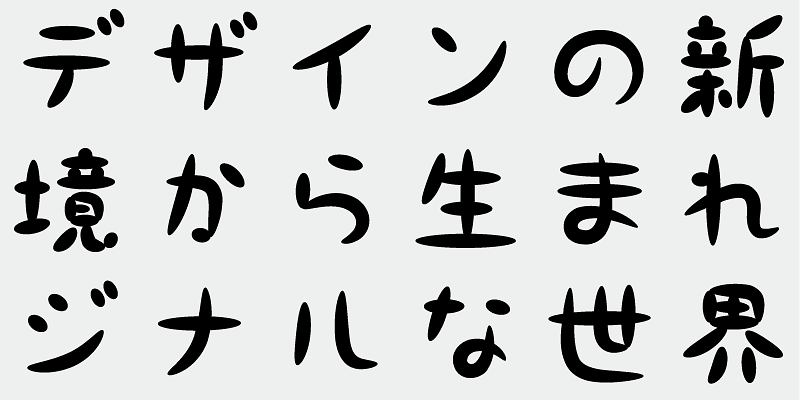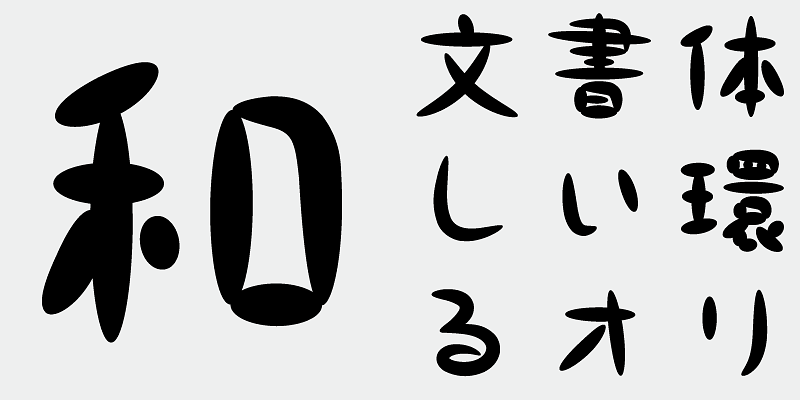
A design typeface inspired by the softness of ovals, expressing a “gentle,” “plump,” “round,” and “cute” feeling.
This font includes the top 1,000 kanji characters selected from usage frequency lists compiled by newspaper companies, publishers, and the National Institute for Japanese Language and Linguistics, plus 206 additional characters such as kana, alphanumerics, and carefully selected symbols and punctuation marks.